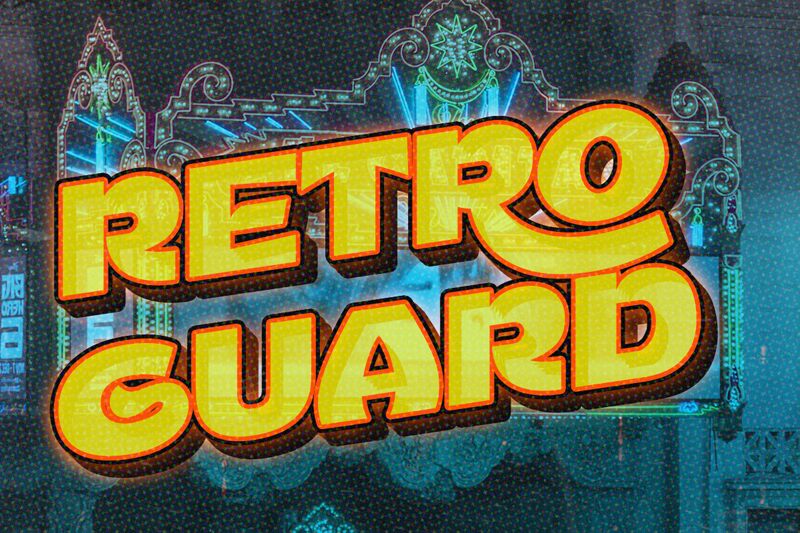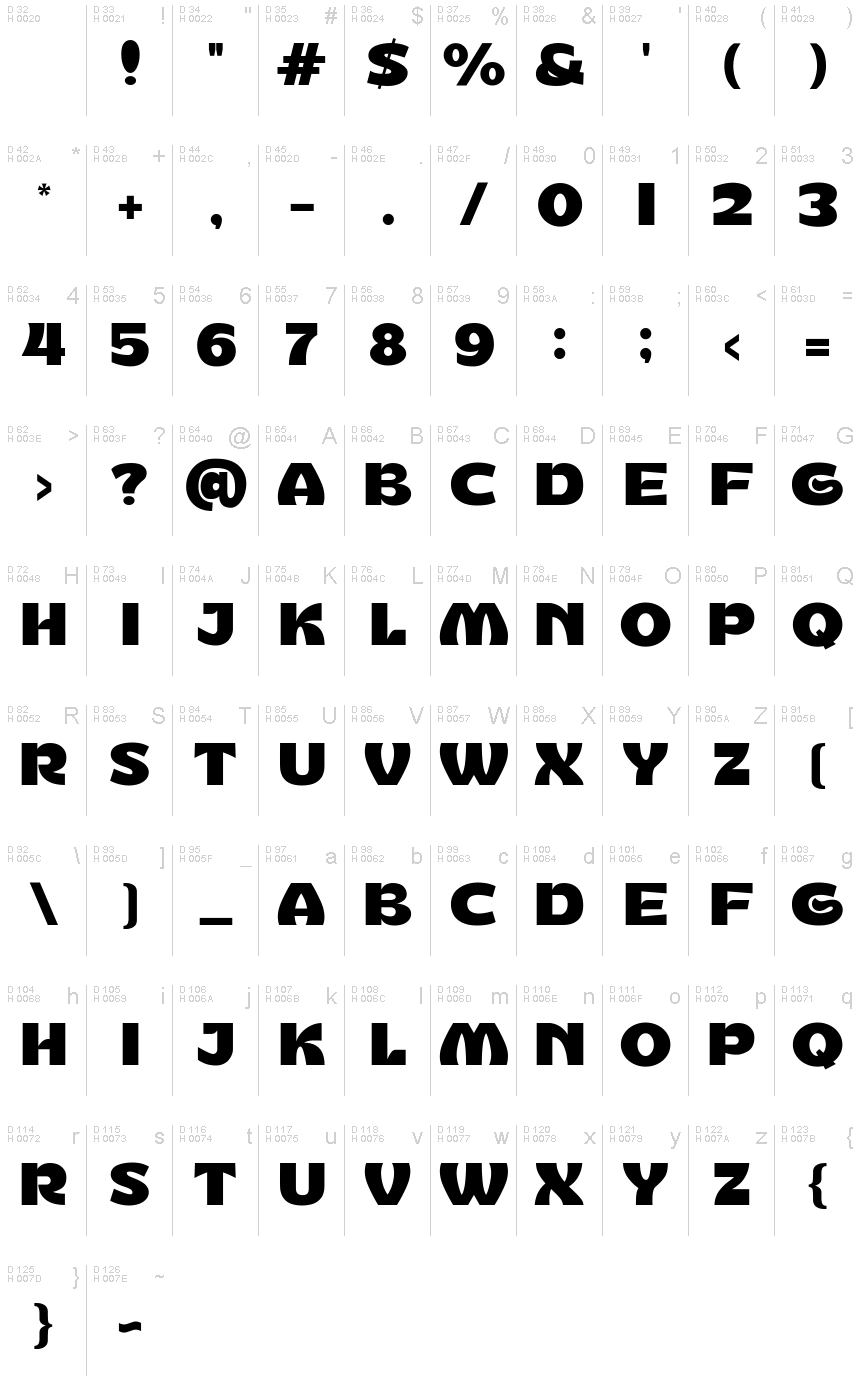
Retroguard font by Mocha Frappuccino is a striking display typeface that embodies retro flair with its bold weight and expanded width. This free font is perfect for those seeking to infuse a nostalgic vibe into their projects. With its unique design, Retroguard captivates attention, making it ideal for headlines, posters, and branding materials that demand a distinctive visual impact.
The retro style of Retroguard seamlessly blends past and present, providing versatility in both modern and vintage designs. Whether you're working on digital or print media, this font offers the freedom to explore creative possibilities. Download Retroguard today to enhance your design toolkit with this eye-catching and memorable typeface. Ideal for creatives looking to make their designs stand out with a touch of classic elegance.